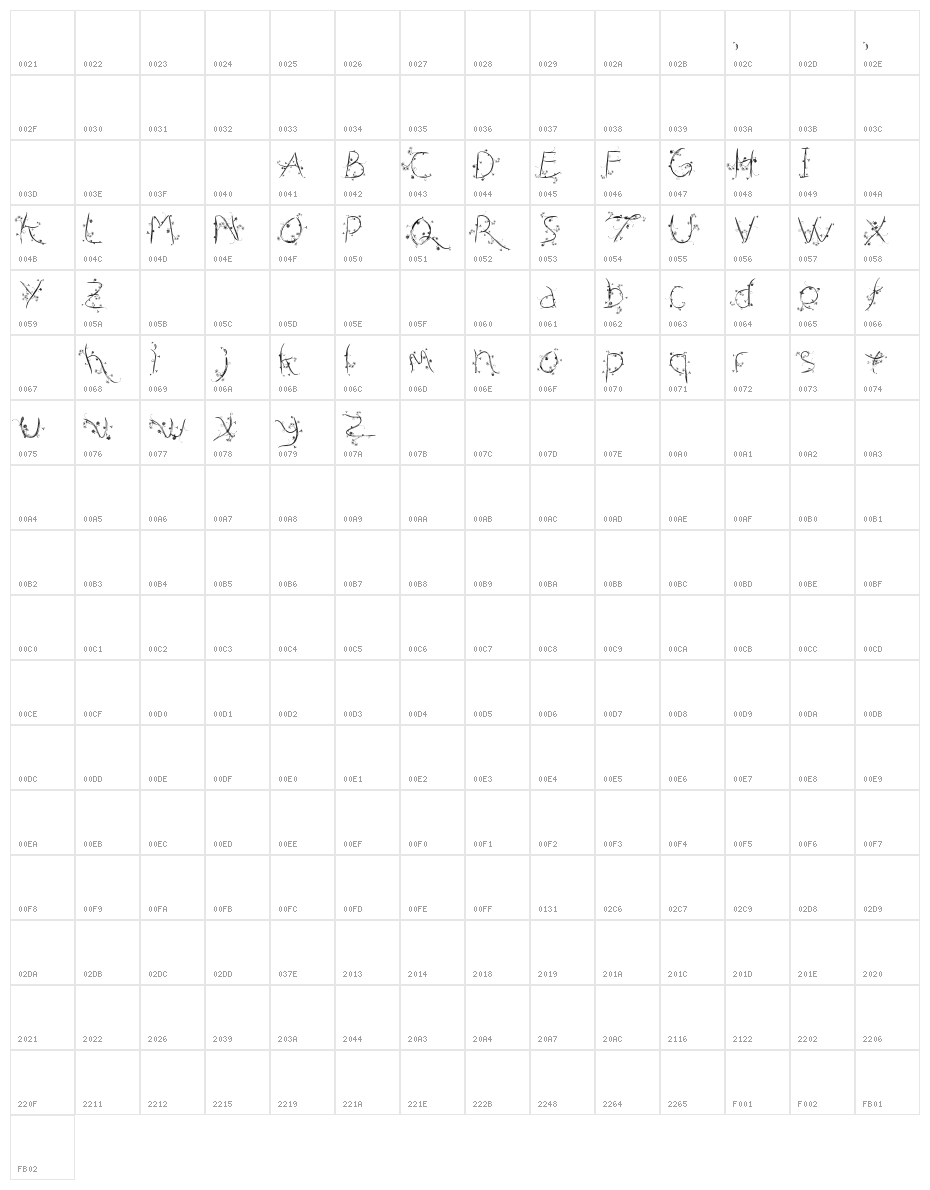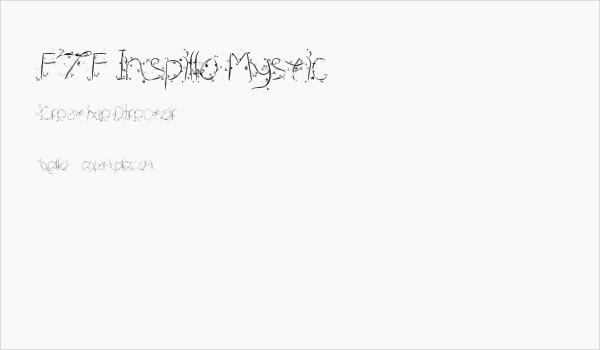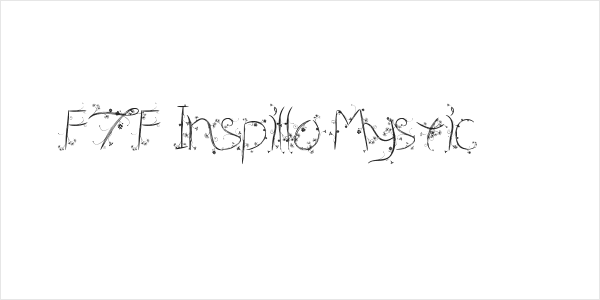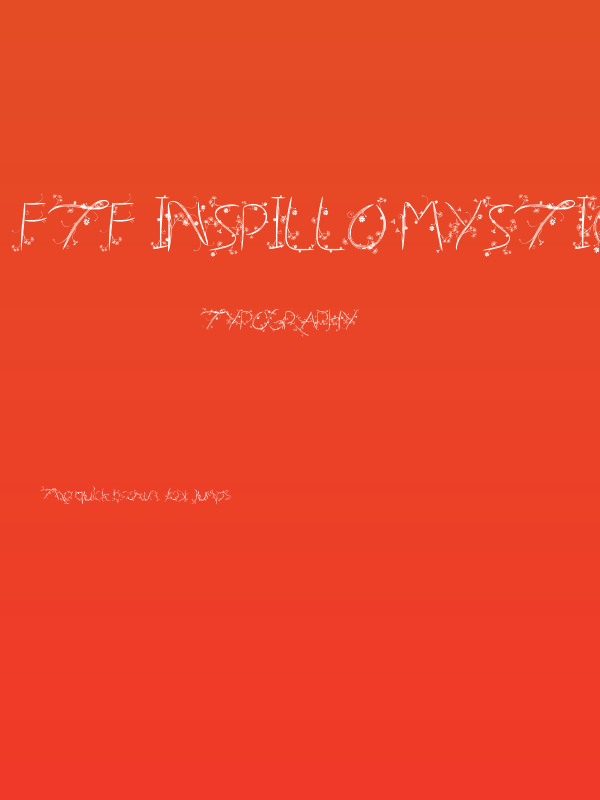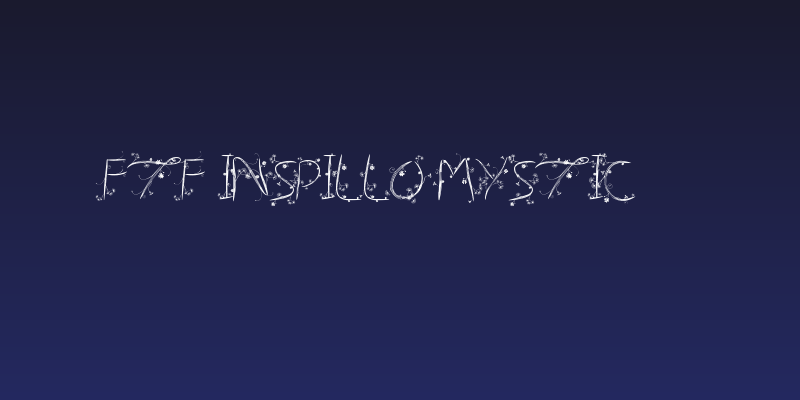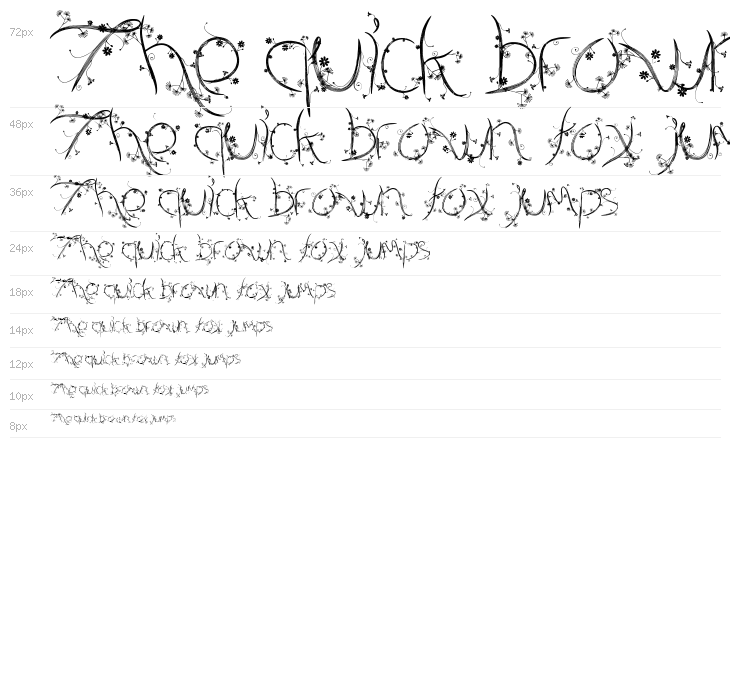
FTF Inspillo Mystic!" Font
FTF Inspillo Mystic!" Description
This font features an intricate and decorative design, with each character adorned with floral and vine-like embellishments. The letters are crafted with a whimsical and artistic flair, creating a sense of elegance and fantasy. The strokes are thin and delicate, with varying thickness that adds to the organic feel of the font. The embellishments are detailed, with flowers and leaves intertwining around the characters, giving it a unique and enchanting appearance. This font is ideal for projects that require a touch of nature and creativity, making it perfect for invitations, greeting cards, and artistic designs.
| Use Case | Logos, Headlines, Artistic designs |
| Proposed Projects | Ideal for invitations, greeting cards, artistic designs, and nature-themed projects. |